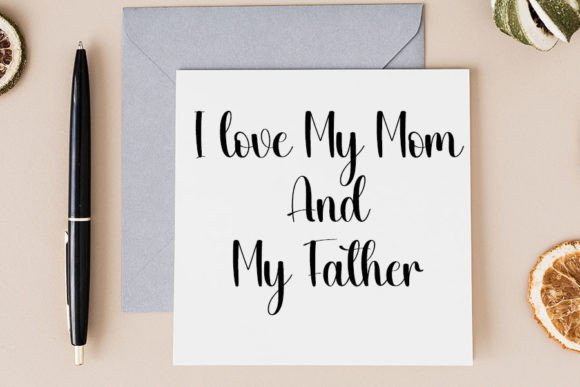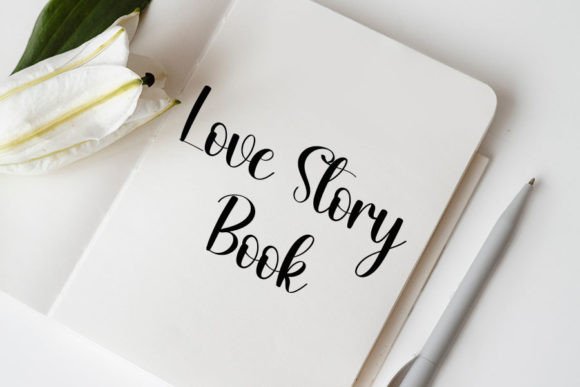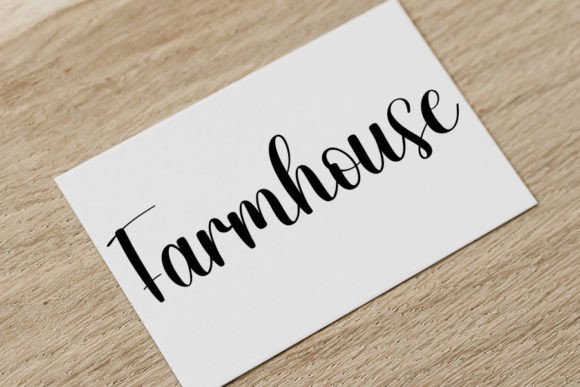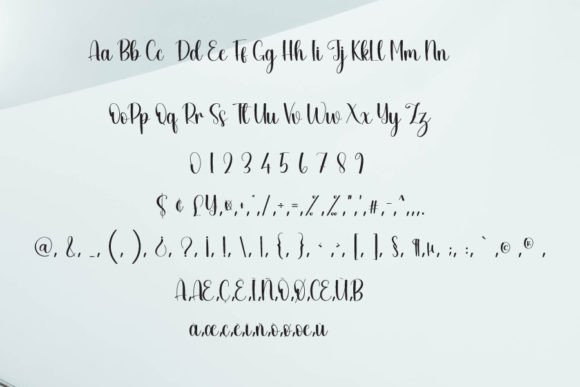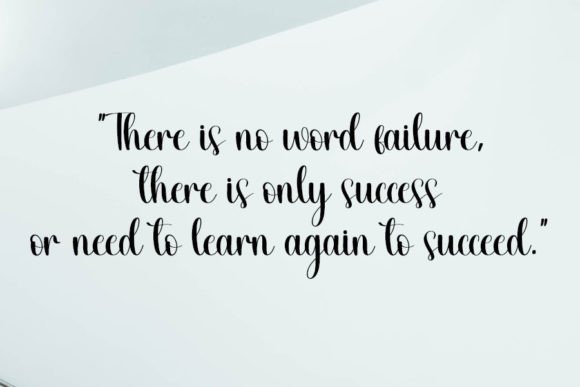
About Outside Font
Outside font is a simple and friendly handwritten typeface designed to add a warm, personal touch to all your creative projects. When you download Outside font, you gain access to a versatile and approachable style that fits effortlessly into a wide variety of design applications. Whether you are working on crafts, digital designs, presentations, or greeting cards, this font is crafted to be your favorite go-to choice.
Perfect for Crafts and Handmade Projects
Outside font is ideal for craft projects that require a genuine and personal feel. By downloading Outsidefont, you can easily add an authentic handwritten style to your DIY gifts, scrapbooks, and handmade cards. Its charming simplicity enhances the heartfelt nature of any craft, making your creations stand out.
Enhances Digital Designs and Visual Presentations
With its clear and friendly appearance, Outsidefont brings a welcoming vibe to digital projects. This font is perfect for creating social media graphics, website headers, and professional presentations. Downloading Outsidefont allows you to maintain a clean yet personable look across all your digital content.
Ideal for Greeting Cards and Invitations
Sending a personal message is easier with Outsidefont. Its handwritten charm makes greeting cards, invitations, and stationery designs feel more intimate and special. When you download Outsidefont, you add warmth and sincerity to your communications, impressing your audience every time.